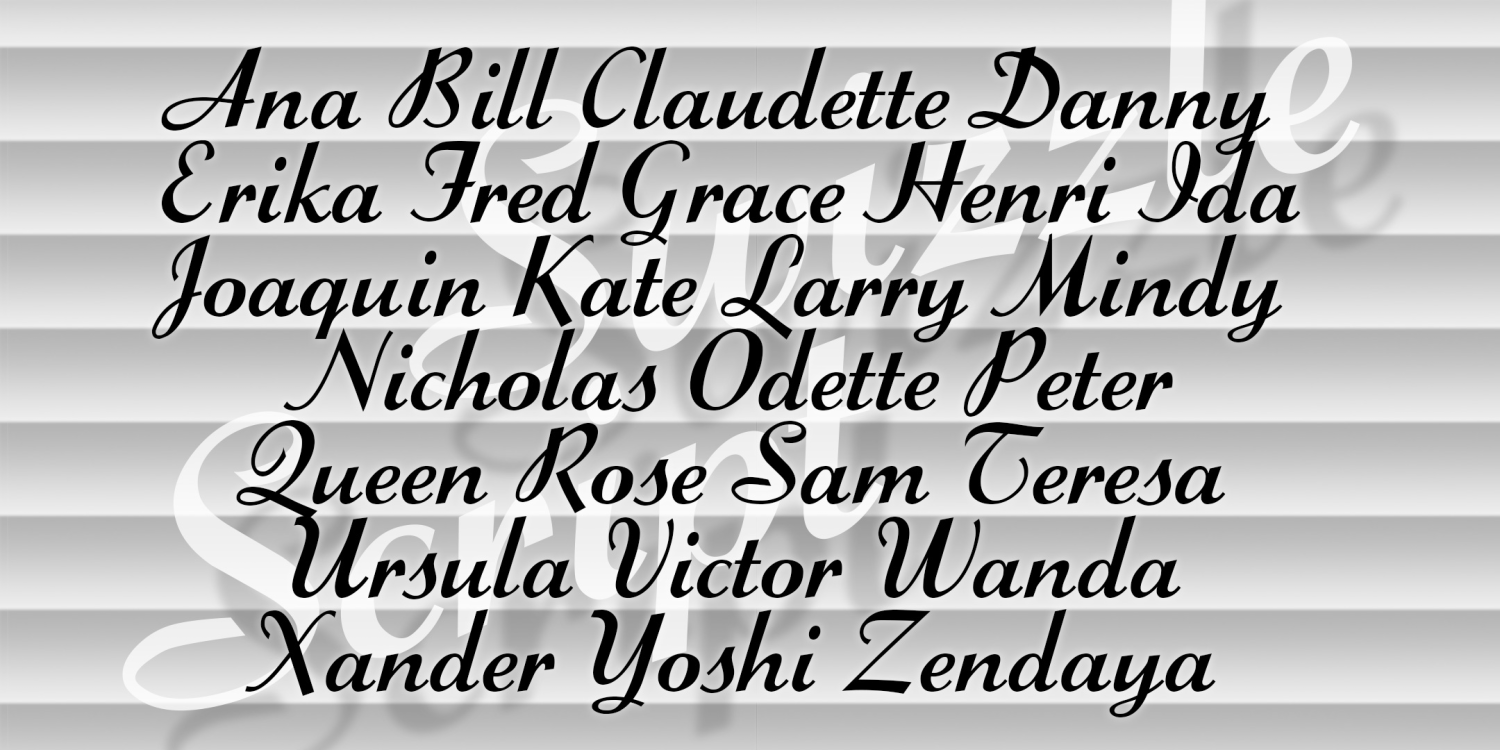
Swizzle Script
SWIZZLE SCRIPT was inspired by the classic analog font "Stylescript", designed by Sol Hess in 1940 for the Lanston Monotype Company. Swizzle Script differs from other similar scripts of the era—such as Trafton and Corone—in its boldness, its thin-thick strokes, and its higher x-height. The description "swanky" comes to mind: a retro notion of elegance.